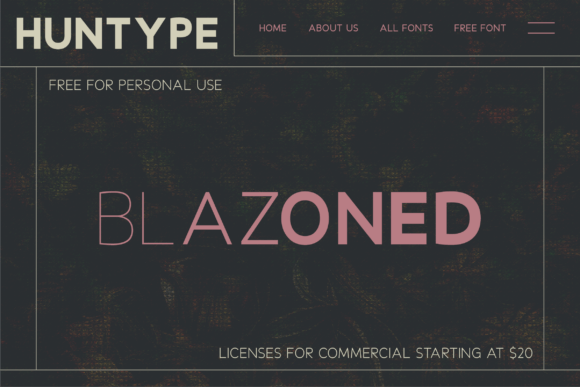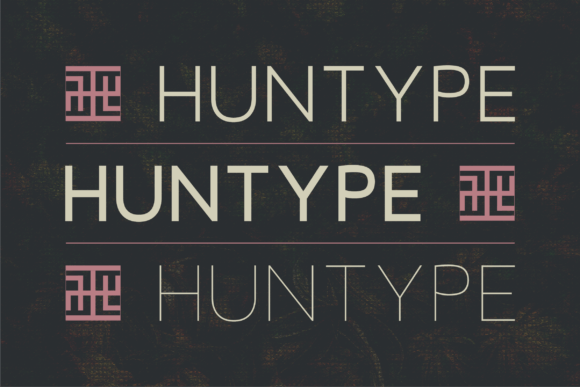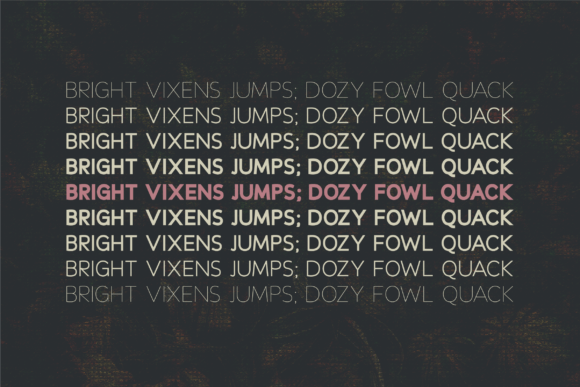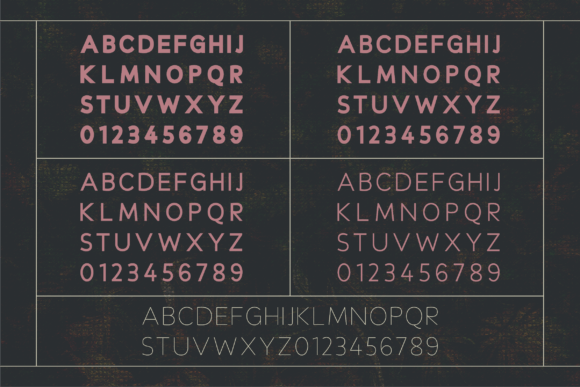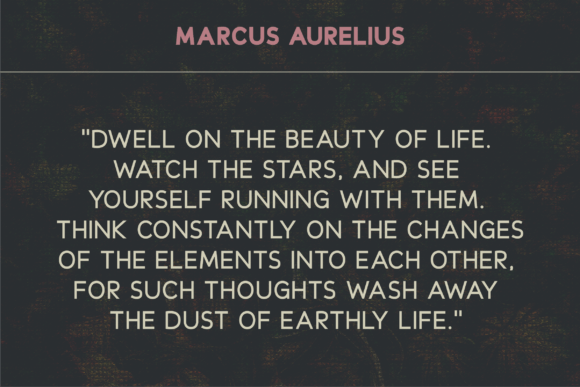
Introducing Blazoned Font: A Modern and Versatile Typeface for Every Design Need
In the world of typography, a font can make all the difference in the effectiveness and aesthetic appeal of a design. For designers and crafters looking for a typeface that combines clean geometric forms with subtle sophistication, Blazoned Font is an exceptional choice. This modern and versatile font family is designed to meet a wide range of design needs, from impactful headlines to elegant text.
The Essence of Blazoned Font
Blazoned Font strikes a perfect balance between sharp lines and gentle curves, making it a standout in the realm of modern typography. Its precise letterforms and contemporary aesthetic ensure that it can be used across various platforms and design applications. Whether you’re working on a sleek corporate brand, an elegant wedding invitation, or a bold advertising campaign, Blazoned Font offers the versatility and sophistication required to elevate your designs.
A Family of Fonts for Every Need
One of the key advantages of Blazoned Font is its comprehensive family of five distinct weights: Thin, Light, Regular, Bold, and Black. This range allows designers to choose the perfect font for their specific needs, ensuring that their message is conveyed with the desired level of impact and elegance.
- Blazoned Black: For those moments when you need a font that’s bold and impactful, Blazoned Black is the perfect choice. Its commanding presence makes it ideal for headlines that need to grab attention and leave a lasting impression.
- Blazoned Bold: When you need a font that’s strong and persuasive, Blazoned Bold fits the bill. It’s perfect for key messages that require emphasis and clarity, making it a valuable asset for any design project.
- Blazoned Regular: As the mid-weight font in the family, Blazoned Regular offers a balanced and versatile option for a wide range of applications. Its adaptability makes it suitable for body text, captions, and more, providing a cohesive look across your design.
- Blazoned Light: For designs that call for a subtle and elegant touch, Blazoned Light is an excellent choice. Its refined appearance makes it perfect for projects where a minimalist approach is desired, without sacrificing readability or sophistication.
- Blazoned Thin: When a delicate and sophisticated look is required, Blazoned Thin delivers. It adds a minimalist touch to designs, making it ideal for elegant stationery, luxury branding, and other applications where understated elegance is paramount.
Design and Crafting Applications
Blazoned Font’s versatility extends to various design and crafting applications. Here are a few areas where this font family shines:
- Branding and Logo Design: Create a lasting impression with Blazoned Font’s range of weights, perfect for crafting memorable logos and brand identities.
- Advertising and Marketing Materials: From bold headlines to elegant body text, Blazoned Font provides the tools needed to create compelling advertising and marketing materials.
- Wedding and Event Stationery: Add a touch of elegance to wedding invitations, programs, and other event materials with Blazoned Light or Thin.
- Digital and Print Media: Blazoned Font’s adaptability makes it suitable for a wide range of digital and print media, including magazines, websites, and more.
Why Choose Blazoned Font?
Blazoned Font stands out in the world of typography for several reasons:
- Modern Aesthetic: Its clean geometric forms and subtle sophistication make it a perfect fit for modern designs.
- Versatility: With five distinct weights, Blazoned Font can be used across a wide range of applications and design projects.
- Readability: Each font in the Blazoned family is designed to be highly readable, ensuring that your message is conveyed clearly and effectively.
- Elegance: Whether you’re aiming for bold and impactful or subtle and elegant, Blazoned Font provides the tools to achieve your design goals.
In conclusion, Blazoned Font is a powerful addition to any designer’s toolkit. Its blend of modern geometric forms, versatility, and elegance makes it an ideal choice for a wide range of design projects. Whether you’re working on branding, advertising, or crafting elegant stationery, Blazoned Font offers the sophistication and impact needed to elevate your designs to the next level.